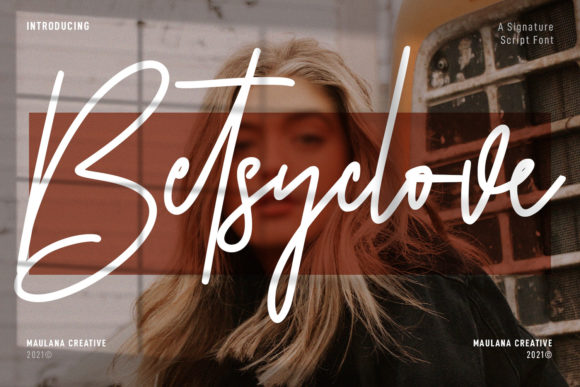
The Enchanting Betsyclove Font: A Designer’s Dream Come True
I still remember the time I was working on a romantic getaway brochure for a client, and I was struggling to find the perfect font to capture the essence of love and warmth. The project required a font that was both elegant and playful, but everything I tried seemed to fall flat. That’s when I stumbled upon the Betsyclove font, and it was love at first sight! 💕
This enchanting handwritten font has a way of adding a romantic feel to any project, and I’m excited to share my experience with you. In this article, we’ll dive into the world of Betsyclove, exploring its features, uses, and some practical tips on how to make the most of this beautiful font.
An Honest Review of Betsyclove Font
What I Love About Betsyclove ✨
• 💫 Versatility: Betsyclove is a script font that can be used for a wide range of applications, from greeting cards to headlines, and even body text.
• ✅ Elegant and Playful: The font strikes the perfect balance between elegance and playfulness, making it perfect for romantic and whimsical projects.
• 🌈 Wide Range of Glyphs: Betsyclove comes with a wide range of glyphs, including ligatures, swashes, and stylistic alternates, giving you plenty of creative options.
• ⚠️ Kerning Issues: Like many script fonts, Betsyclove can have some kerning issues, especially when used at smaller sizes. Be sure to adjust the kerning manually for optimal results.
• 😐 Limited Use in Body Text: While Betsyclove can be used for body text, it’s best suited for shorter paragraphs or headings. For longer texts, a more traditional font might be more suitable.
The Backstory of Betsyclove Font
Betsyclove was designed by a talented type designer who wanted to create a font that captured the essence of love and romance. Inspired by vintage love letters and romantic novels, Betsyclove was crafted to be both elegant and playful, making it perfect for a wide range of creative projects.
What is the best use for Betsyclove font? Betsyclove is perfect for romantic and whimsical projects, such as greeting cards, wedding invitations, and love letters.
Is Betsyclove suitable for body text? While Betsyclove can be used for body text, it’s best suited for shorter paragraphs or headings. For longer texts, a more traditional font might be more suitable.
Does Betsyclove come with OpenType features? Yes, Betsyclove comes with a range of OpenType features, including ligatures, swashes, and stylistic alternates.